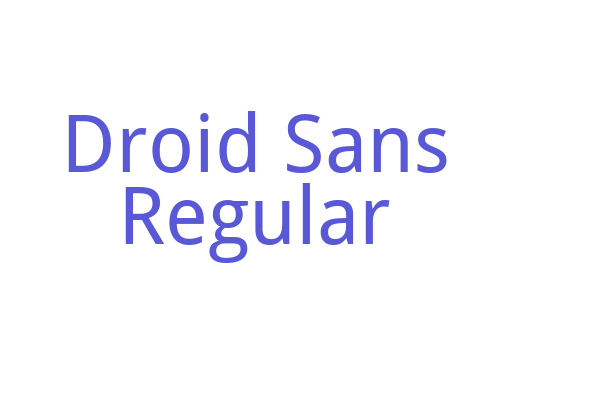
Droid Sans Regular is a basic sans serif font from the Droid Sans font family. Designed by an unknown designer, this font features a clean and modern style that is perfect for a wide range of design projects. Ideal for both print and digital applications, Droid Sans Regular is versatile and easy to read, making it a great choice for body text or headlines.
Font Name: Droid Sans Regular
Font Family: Droid Sans